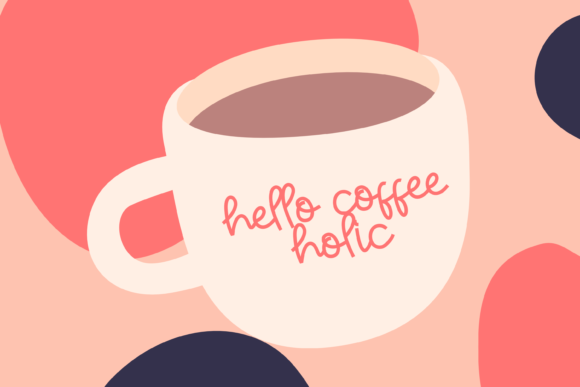
About Rainbow Cake Font
Rainbow Cake is a cute, quirky and fun handwritten font. Whether you use it for cartoon related designs, children games or just any creation that requires a lovely touch, this font will be an amazing choice.